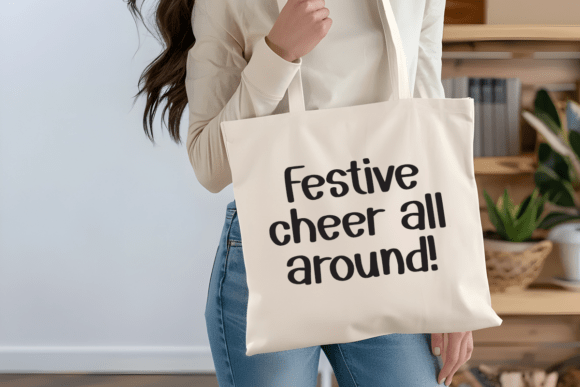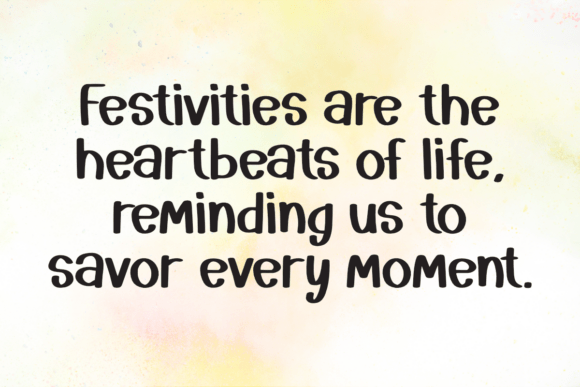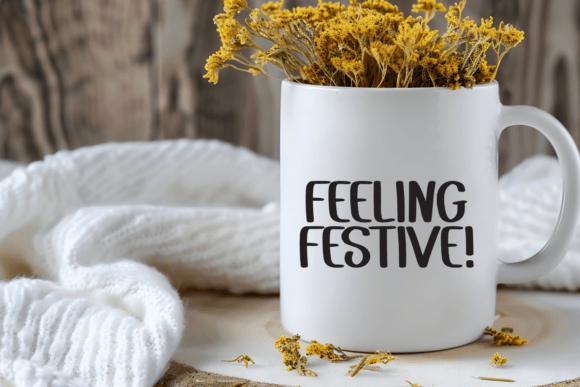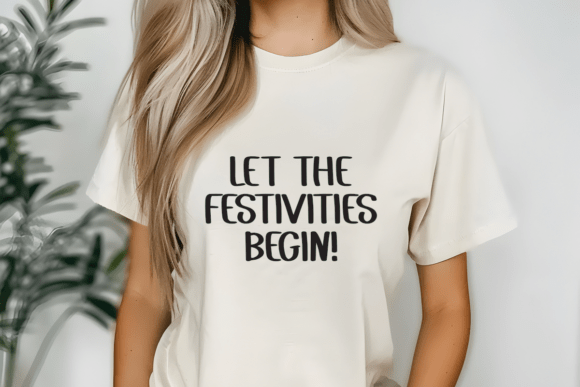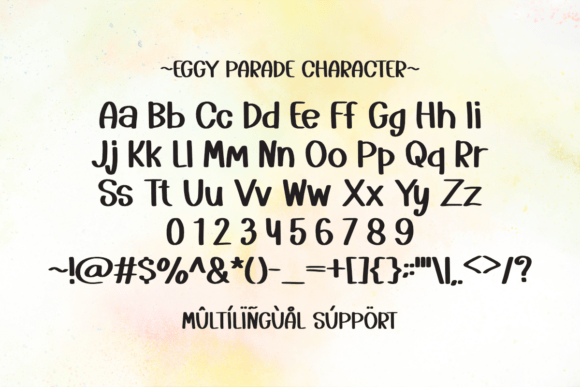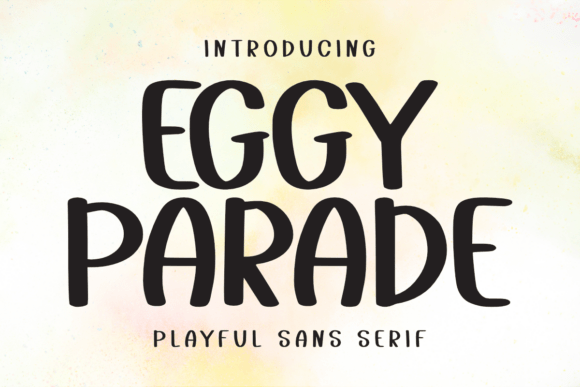
Eggy Parade Font: The Perfect Choice for Playful and Friendly Designs
Are you looking for a font that can add a touch of playfulness and friendliness to your designs? Look no further than Eggy Parade Font! This cute and quirky sans serif font is perfect for a variety of projects, from playful branding to children’s books, Instagram posts, and more. In this article, we’ll take a closer look at Eggy Parade Font and explore its features, benefits, and uses.
What is Eggy Parade Font?
Eggy Parade Font is a sans serif font that is characterized by its rounded curves and bouncy flow. It’s a font that radiates positivity and is sure to bring a smile to your face. The font is designed to be highly legible and versatile, making it perfect for a wide range of applications.
Features of Eggy Parade Font
So, what makes Eggy Parade Font so special? Here are just a few of its key features:
• Rounded curves: Eggy Parade Font features rounded curves that give it a soft and friendly feel.
• Bouncy flow: The font has a bouncy flow that makes it perfect for playful and dynamic designs.
• Sans serif: Eggy Parade Font is a sans serif font, which makes it highly legible and versatile.
• Lighthearted and friendly: The font has a lighthearted and friendly tone that is perfect for designs that need to appeal to a wide audience.
Benefits of Using Eggy Parade Font
So, why should you choose Eggy Parade Font for your next project? Here are just a few of the benefits of using this font:
• Perfect for playful branding: Eggy Parade Font is perfect for brands that want to convey a playful and friendly image.
• Great for children’s books: The font is highly legible and fun to read, making it perfect for children’s books and other kid-friendly content.
• Ideal for Instagram posts: Eggy Parade Font is perfect for Instagram posts that need to stand out from the crowd.
• Easy to read: The font is highly legible, even at small sizes, making it perfect for a wide range of applications.
Uses of Eggy Parade Font
So, what can you use Eggy Parade Font for? Here are just a few ideas to get you started:
• Playful branding: Use Eggy Parade Font to create a playful and friendly brand image.
• Children’s books: The font is perfect for children’s books, educational materials, and other kid-friendly content.
• Instagram posts: Use Eggy Parade Font to create eye-catching Instagram posts that will stand out from the crowd.
• Signs and displays: The font is perfect for signs and displays that need to be easy to read and visually appealing.
• Digital and print materials: Eggy Parade Font can be used for a wide range of digital and print materials, including brochures, flyers, and more.
Tips for Using Eggy Parade Font
Here are a few tips for using Eggy Parade Font effectively:
• Use it with a playful color scheme: Eggy Parade Font looks great with bright and playful colors.
• Experiment with different sizes: The font is highly legible, even at small sizes, so don’t be afraid to experiment with different sizes.
• Pair it with other fonts: Eggy Parade Font can be paired with other fonts to create a unique and visually appealing design.
Eggy Parade Font is a cute and quirky sans serif font that is perfect for playful and friendly designs. With its rounded curves and bouncy flow, it’s sure to bring a touch of positivity to your projects. Whether you’re working on a playful branding campaign, a children’s book, or an Instagram post, Eggy Parade Font is a great choice. So why not give it a try and see how it can add a lighthearted and friendly touch to your designs?